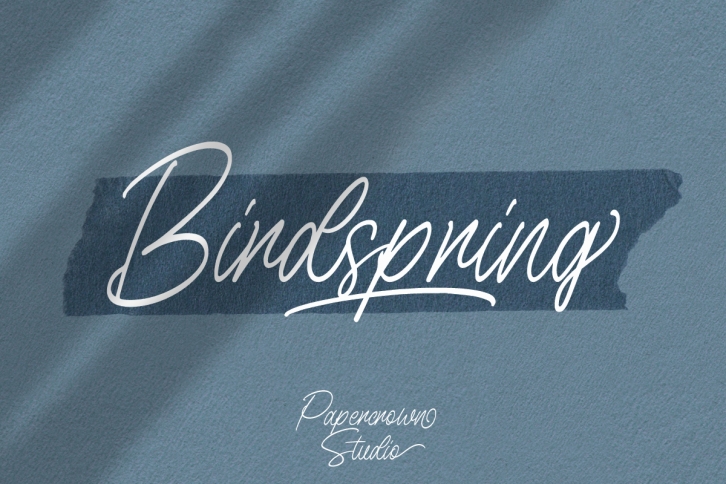
Birdspring Signature is a gorgeous font that was realeased on November 20, 2019. The font can be used in many style contexts and design environments. Perfect for invitations, magazines, websites, logos, and more! It was designed by Rillatype and the file size is 8.34 MB. Thanks for checking out this font!